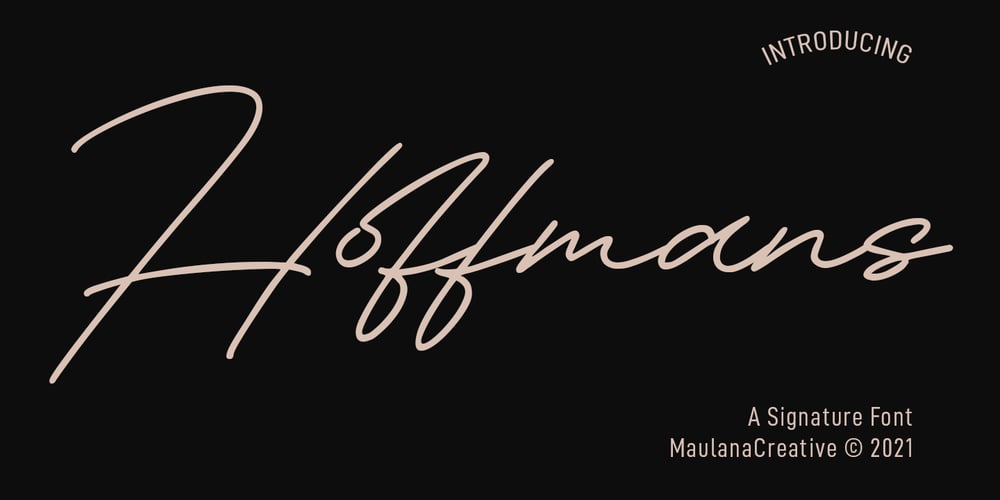
Hoffmans Font Family was designed by Gilang Maulana and published by Maulana Creative. Hoffmans contains 1 styles and family package options. Hoffmans is a Fancy Signature script font. With mono-line stroke, super slanted and fun character with a bit of ligatures and a bit lowercase alternatives. To give you an extra creative work. Hoffmans font support multilingual more than 100+ language. This font is good for logo design, Social media, Movie Titles, Books Titles, a short text even a long text letter and good for your secondary text font with sans or serif. Make a stunning work with Hoffmans font. Cheers, MaulanaCreative